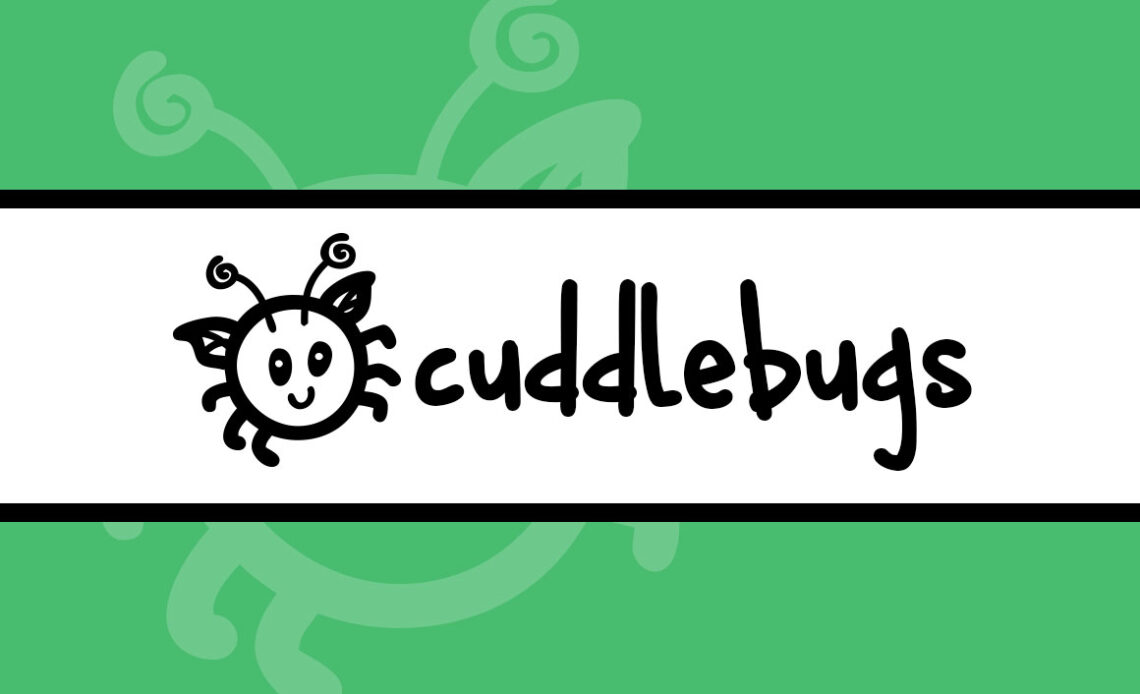
Unleash the Whimsy and Playfulness with Cuddlebugs Font!
Step into a world of enchantment and joy with Cuddlebugs Font, a whimsical handwritten font that sparks imagination and brings an instant smile to your face. Designed with a playful and lighthearted touch, Cuddlebugs is the perfect choice for adding a touch of charm and personality to your creative projects.
Transport yourself to a world of enchanting tales and heartfelt messages with Cuddlebugs' unique and expressive style. Ideal for kids' books, greeting cards, invitations, and branding for youth-oriented businesses, this font captures the magic of childhood and sparks a sense of wonder.
With Cuddlebugs, you'll effortlessly create designs that radiate warmth and cheerfulness. Its charming strokes and playful ligatures add a touch of whimsy to any project, making it stand out from the crowd. Whether you're a designer, a crafter, or simply a lover of beautiful fonts, Cuddlebugs is the perfect addition to your creative toolkit.
Embrace the magic of Cuddlebugs today and let your imagination run wild!